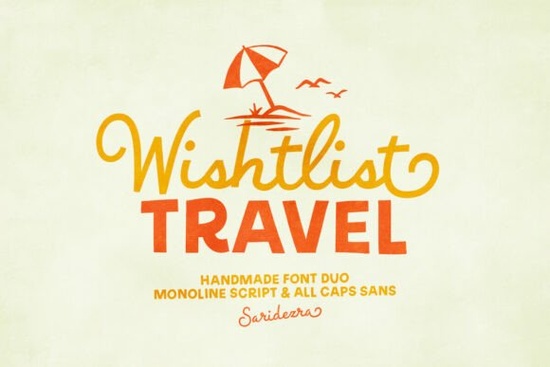
If you're looking for a font that feels both personal and polished, Wishlist Travel Font is a great choice. It’s a clean, handmade duo with a monoline script and a bold sans-serif style perfect for adding a touch of warmth and personality to your projects. Whether you’re designing wedding invites, holiday cards, or branding materials, this font set gives you flexibility without sacrificing style.
What makes Wishlist Travel Font stand out?
The script part of the font was carefully crafted with thoughtful details. One standout feature is the ending alternates small variations at the end of each character that help balance the look when mixing uppercase letters. This subtle design touch keeps your text feeling harmonious, especially in headings or quotes where spacing matters.
It’s not just about looks. The font supports multiple languages, which means you can use it across different markets or with multilingual content. That’s helpful whether you're creating designs for international clients or just want to experiment with different scripts.
When should you use this font?
- Wedding invitations – Its elegant flow works beautifully for formal yet heartfelt messages.
- Holiday cards – The festive vibe fits perfectly during Christmas, Easter, or other seasonal celebrations.
- Logotypes and branding – Pair the script with the bold sans for a modern, balanced brand identity.
- Quotes and social media graphics – Great for inspirational posts, mood boards, or print-on-demand items.
You’ll find it especially useful if you’re running a small creative business or crafting digital products. The combination of script and sans makes it easy to create visual hierarchy use the bold version for headlines and the script for accents.
How does it compare to similar fonts?
If you’ve tried other script fonts like High Rise Font, you might notice that Wishlist Travel has a more consistent stroke width and smoother transitions between characters. It’s less ornate than some options but still expressive enough for emotional impact.
For those who love playful, dynamic styles, Spiky Font offers a bolder edge but if you prefer something gentler and more versatile, Wishlist Travel strikes a nice middle ground.
Looking for something minimalist? OneLiner Font focuses on simplicity, while Wishlist Travel adds just enough flair to feel unique without being overwhelming.
And if you enjoy fonts with a travel-inspired mood, Night Train Font brings a dreamy, late-night journey vibe. Wishlist Travel shares that sense of movement and wanderlust, but with a cleaner, more refined finish.
What should you keep in mind when using it?
Because the script has natural flow, it works best with careful kerning (spacing between letters). Try adjusting the spacing manually when working with long phrases or titles. The font also shines in larger sizes ideal for posters, banners, or cover designs.
Final thoughts
Wishlist Travel Font isn’t flashy, but it’s reliable. It’s built for real-world use, from handmade cards to small business branding. If you want a font that feels handcrafted without requiring extra effort to make it look good, this one delivers.